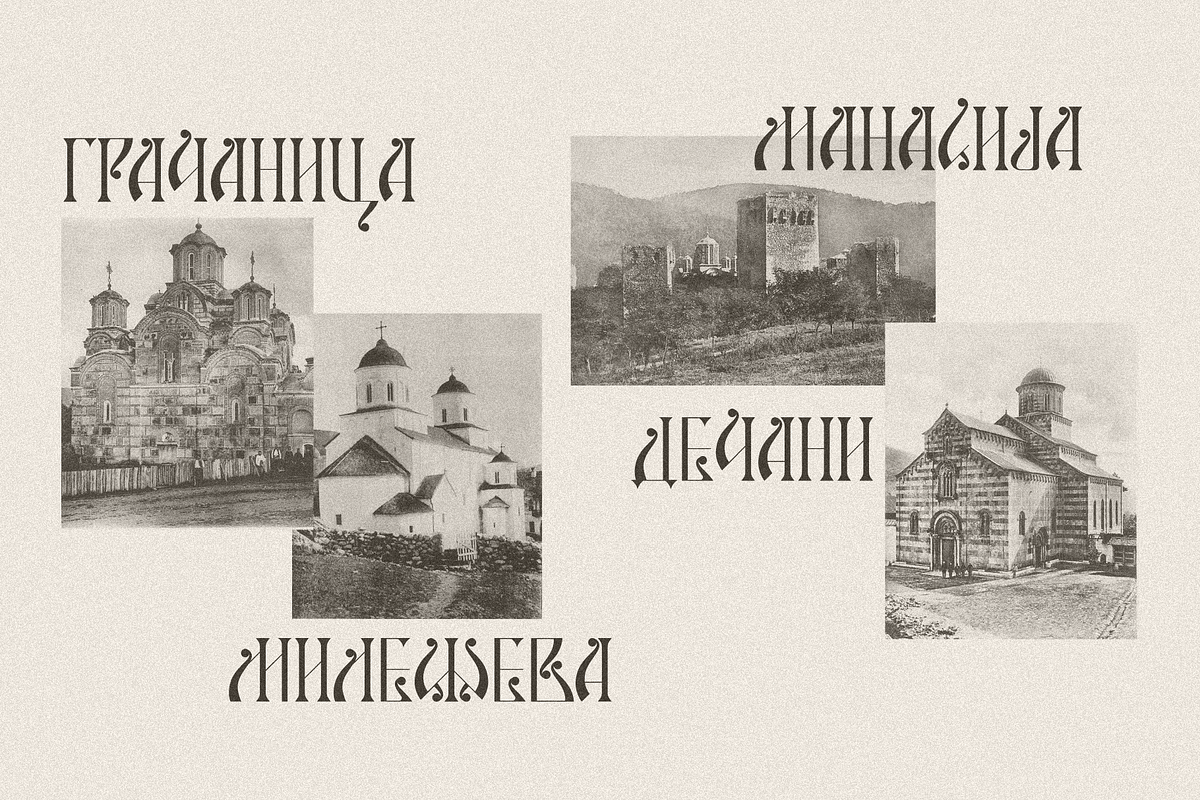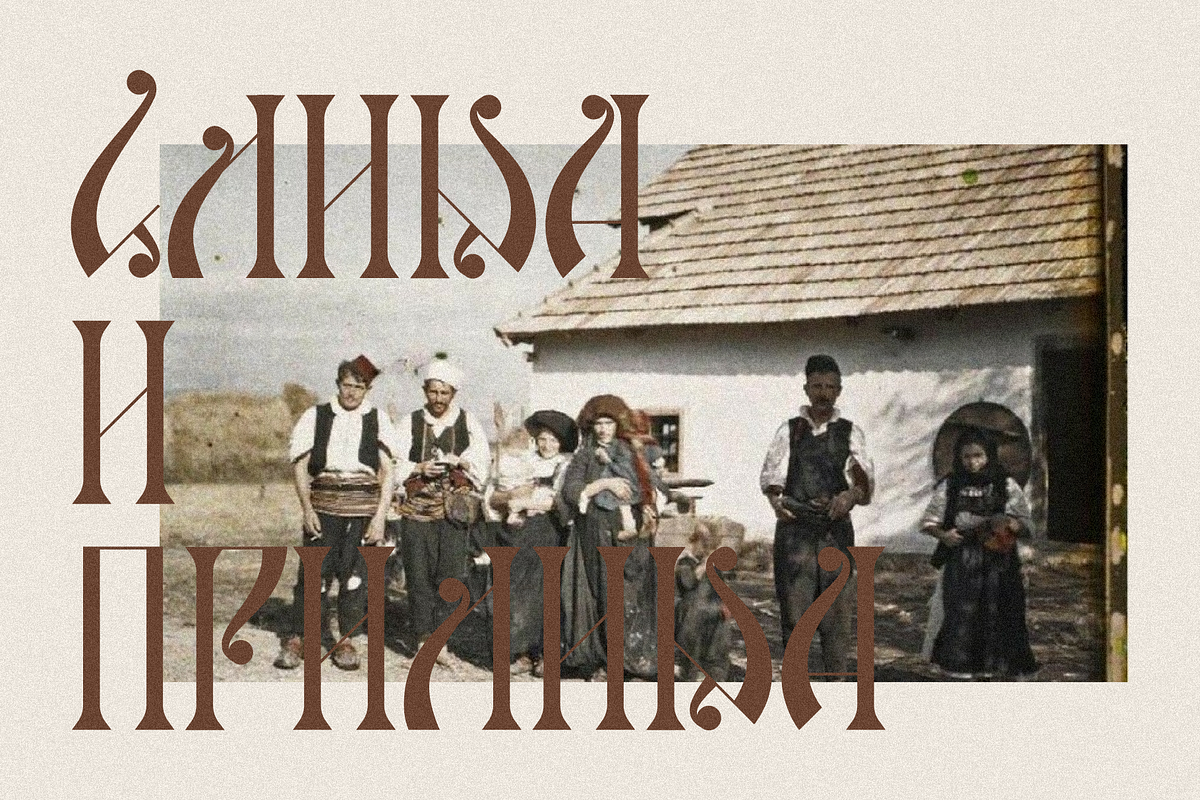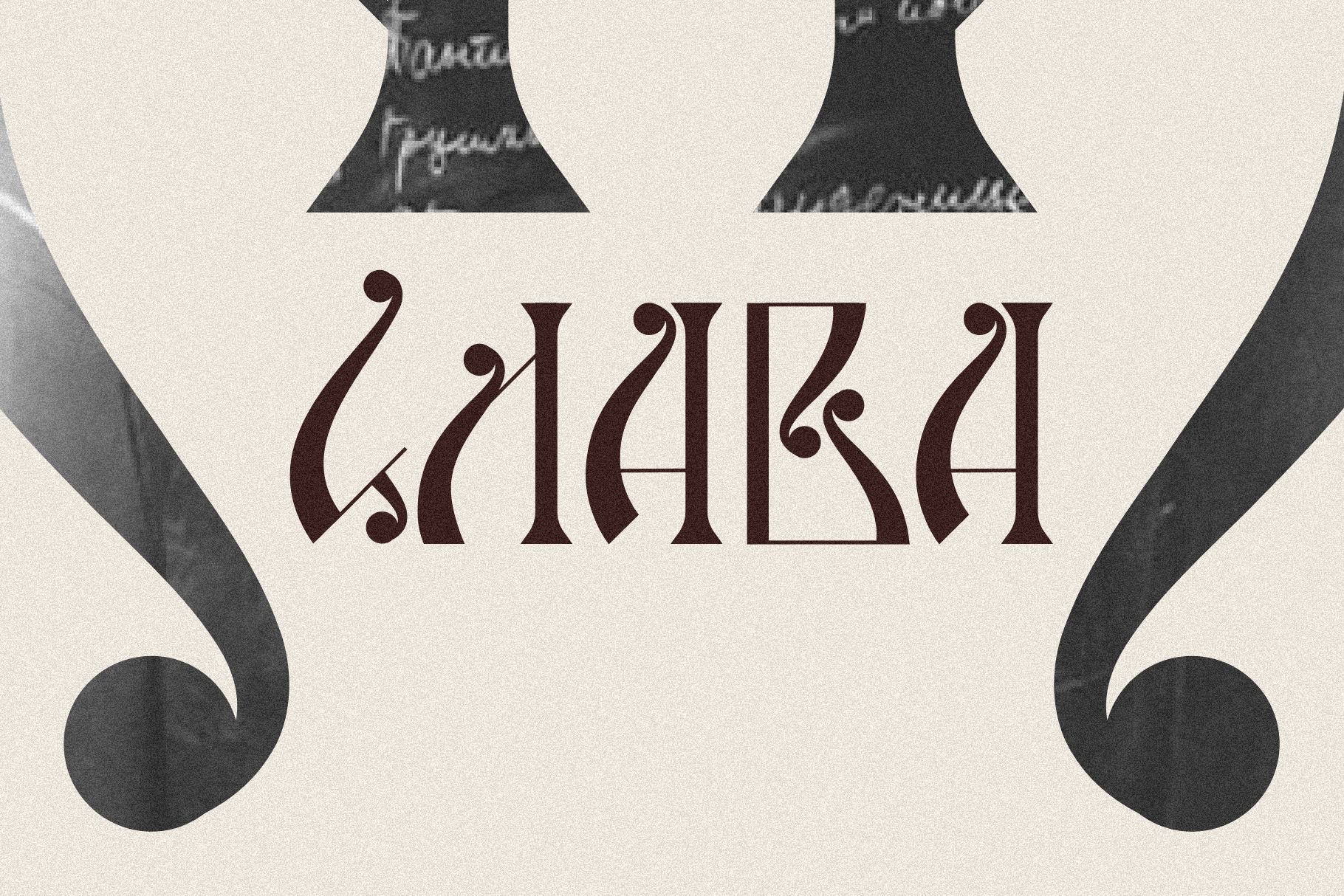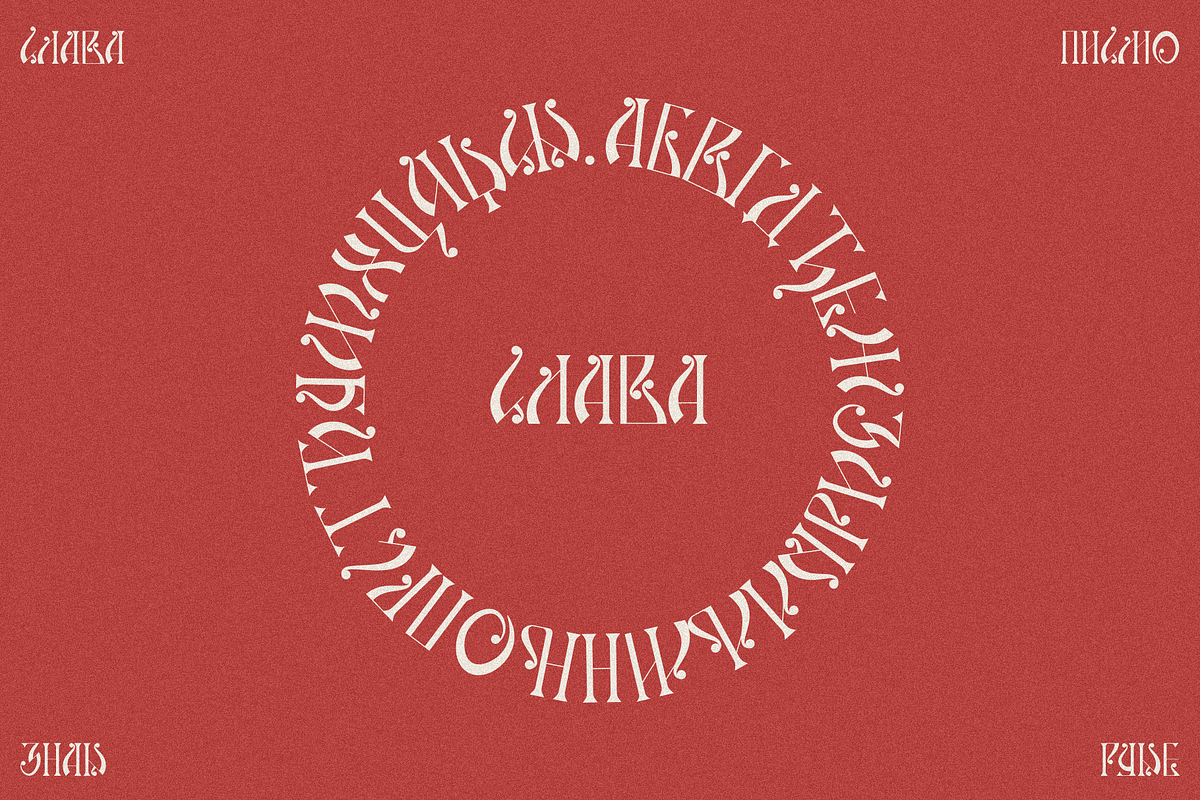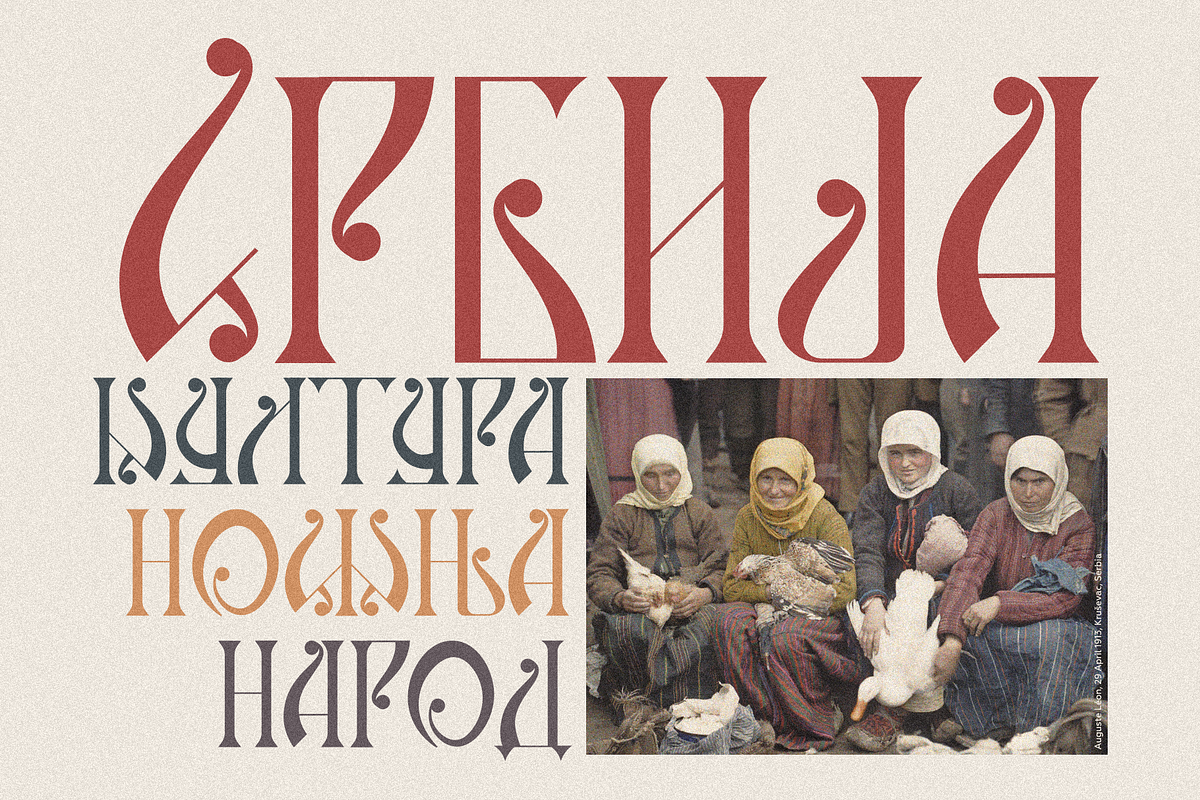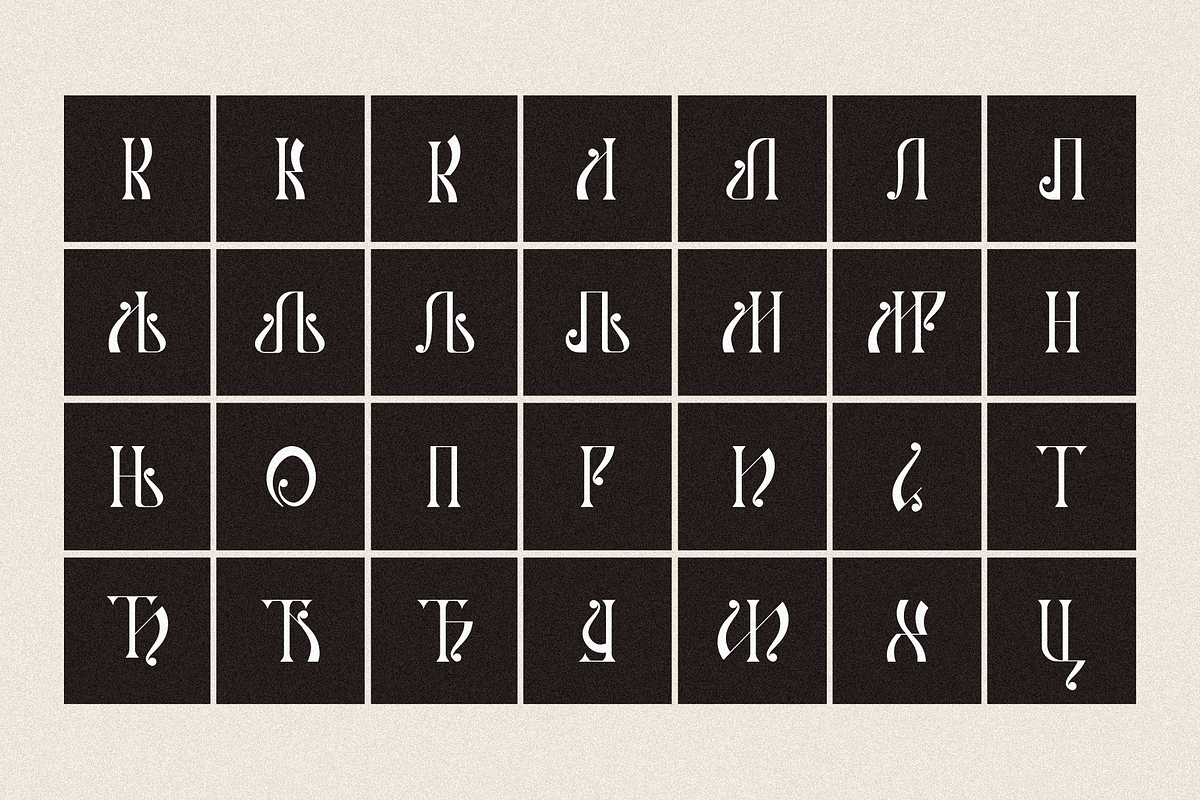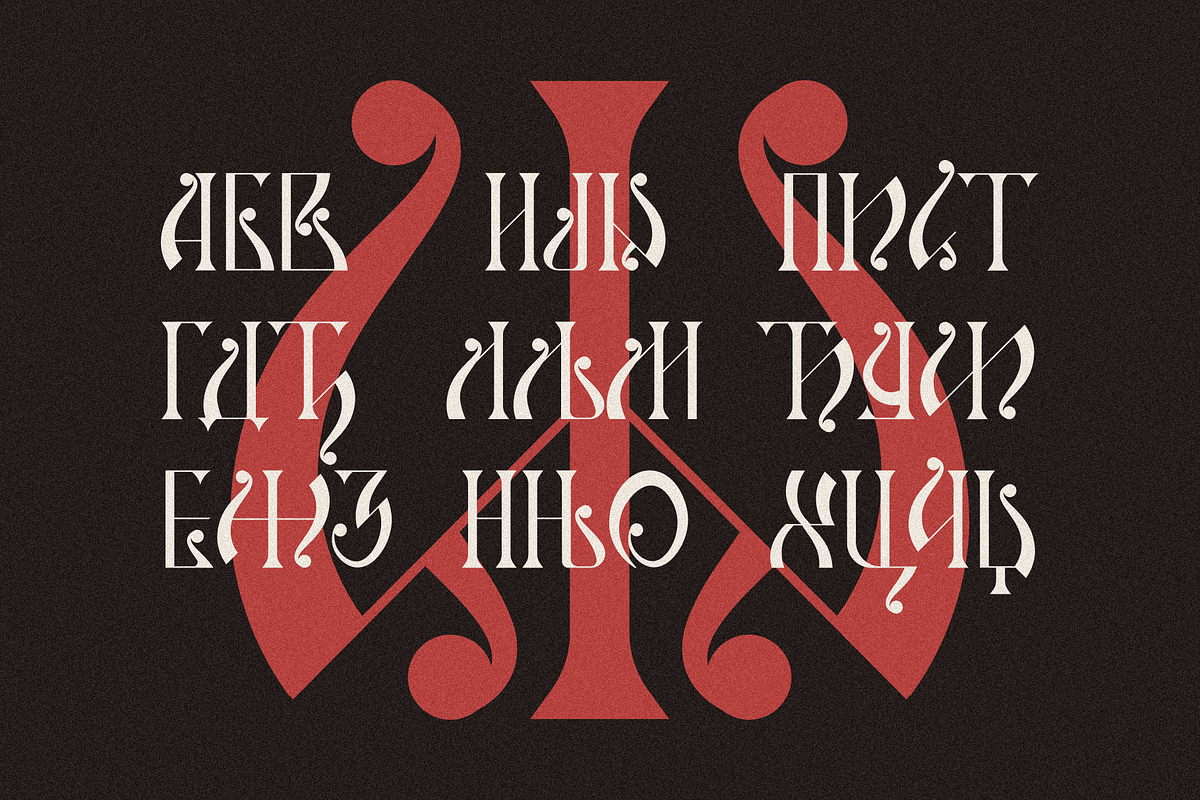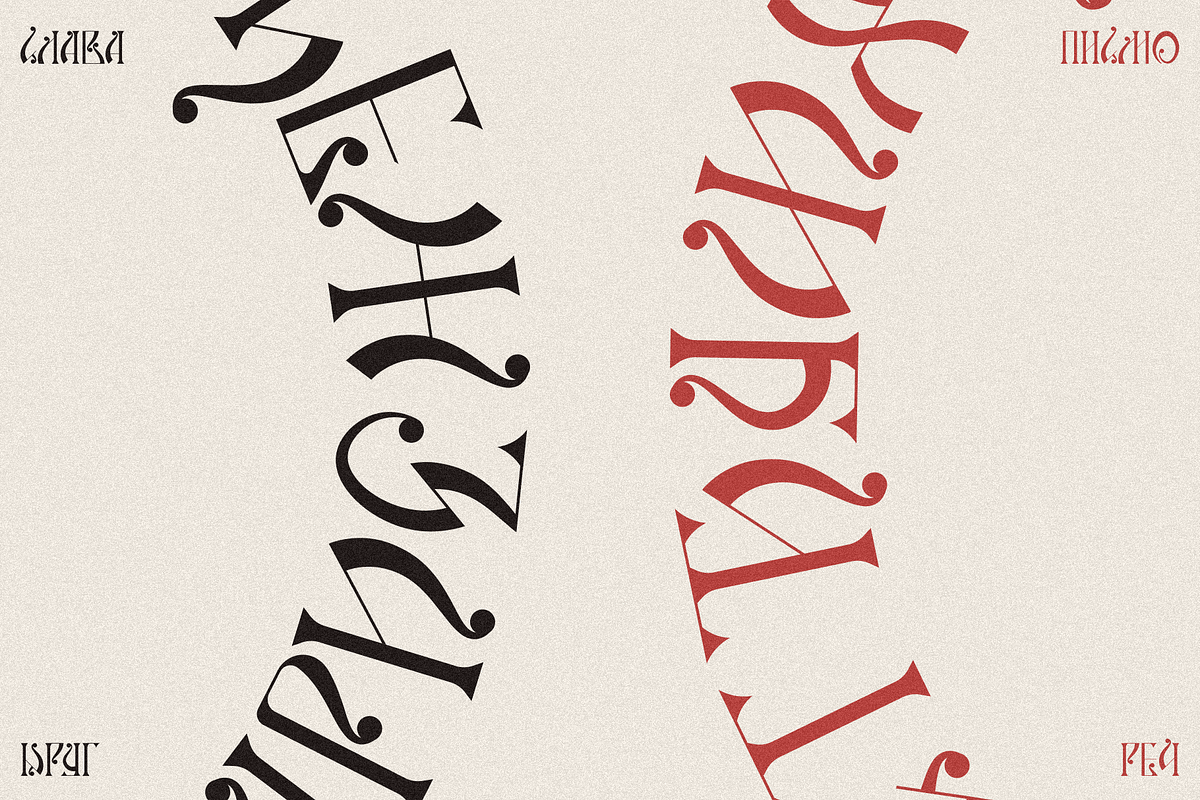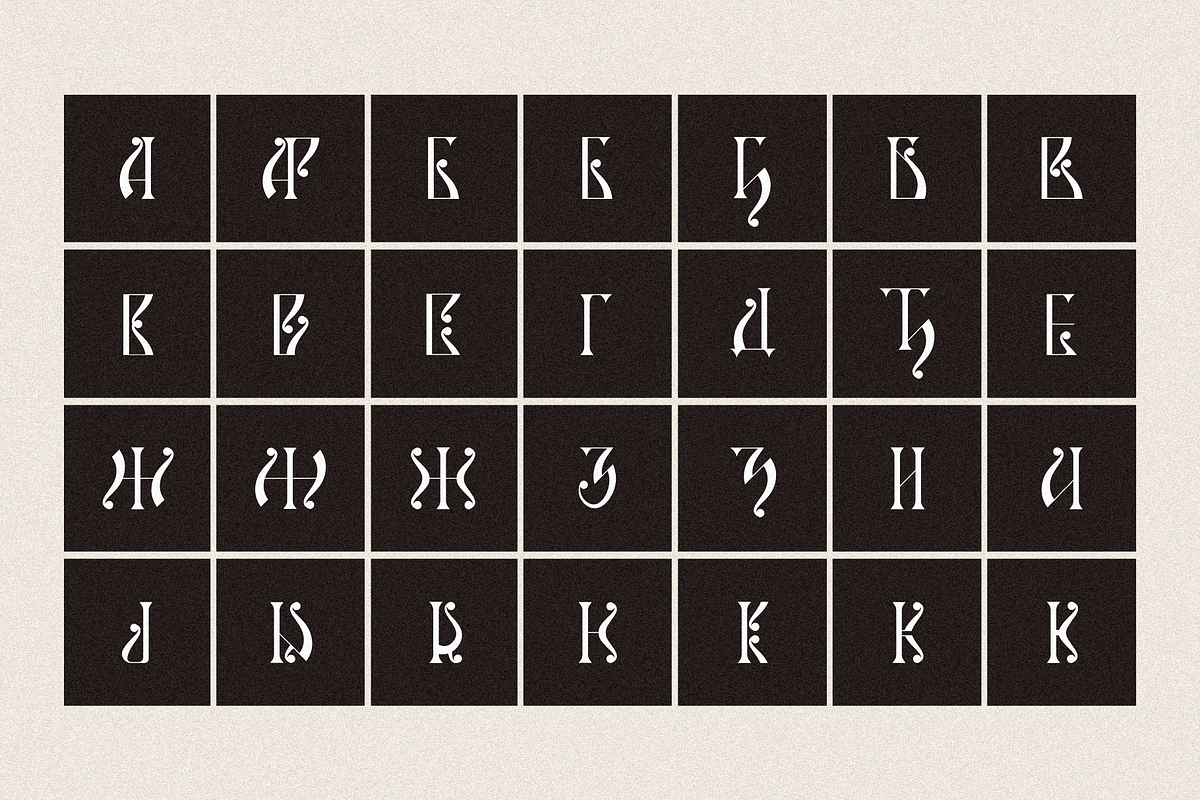
Slava - decorative traditional font
Слава is a Serbian-Cyrillic decorative traditional font. It is inspired by calligraphy from banknotes of the Kingdom of Serbia from 1905.
Since the sample was quite small in terms of letters, it gives me a lot of freedom to spread it in the necessary direction and make it a completely original work.
The main goal is to present rich and decorative typography, with a bunch of ornaments and ligatures.